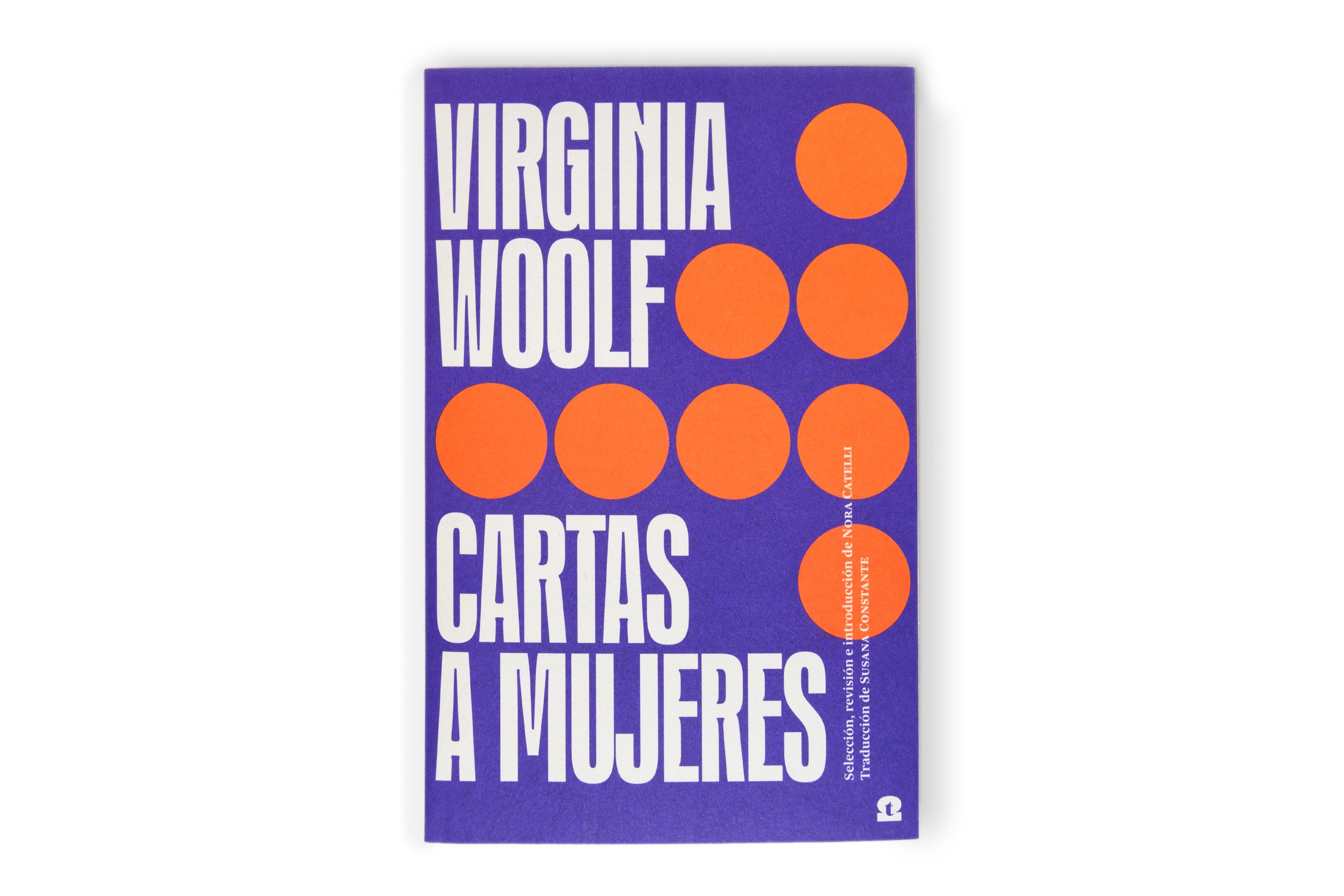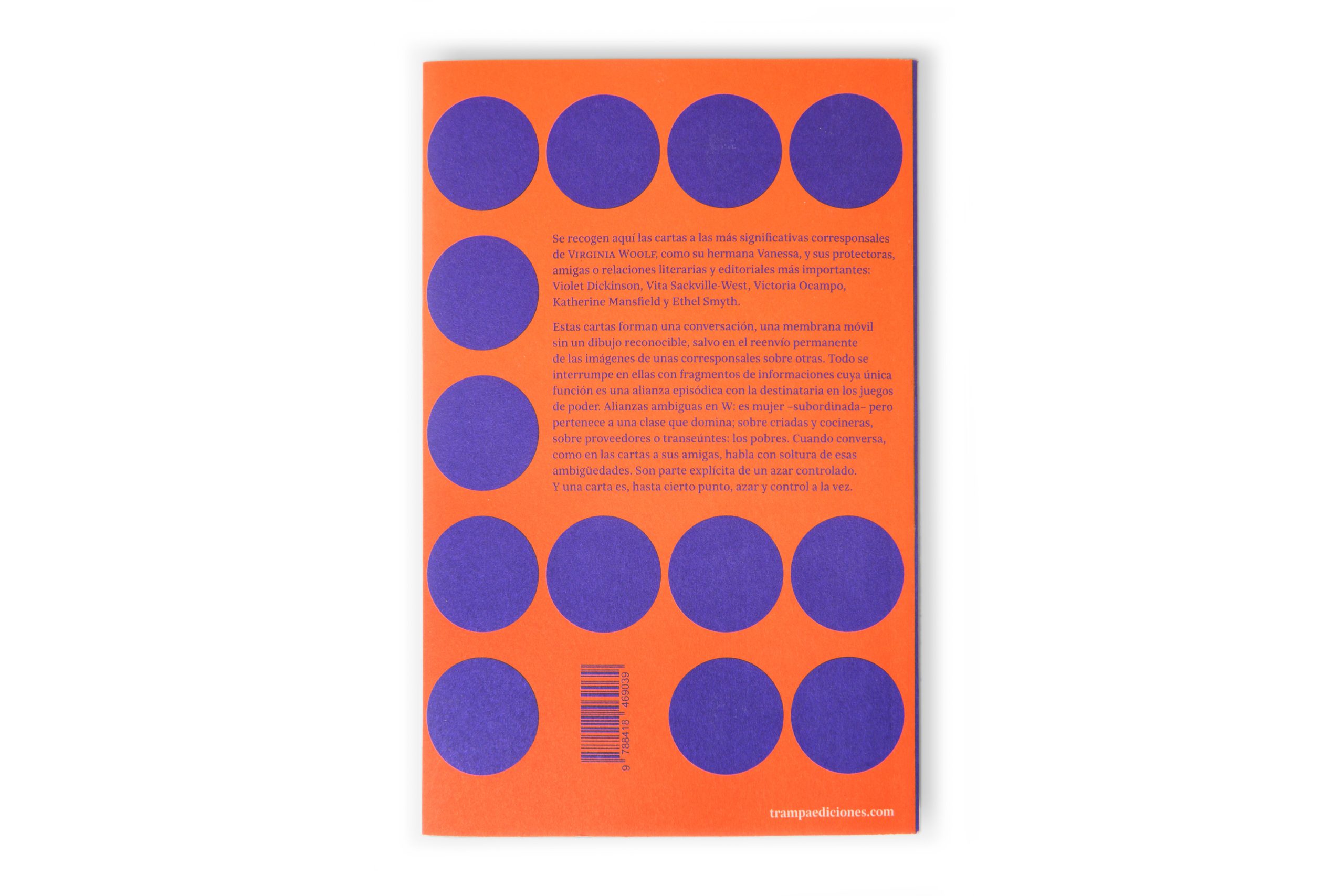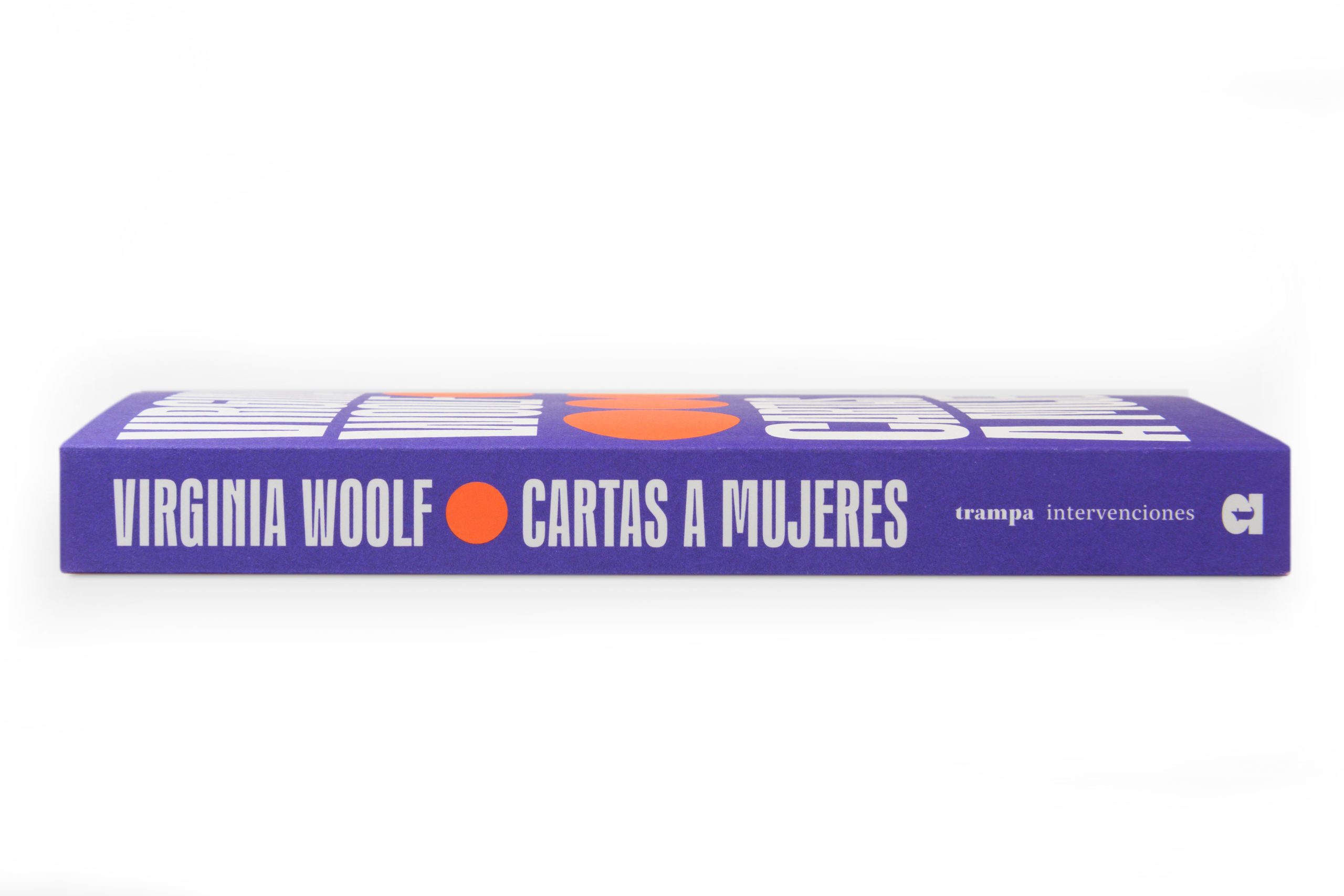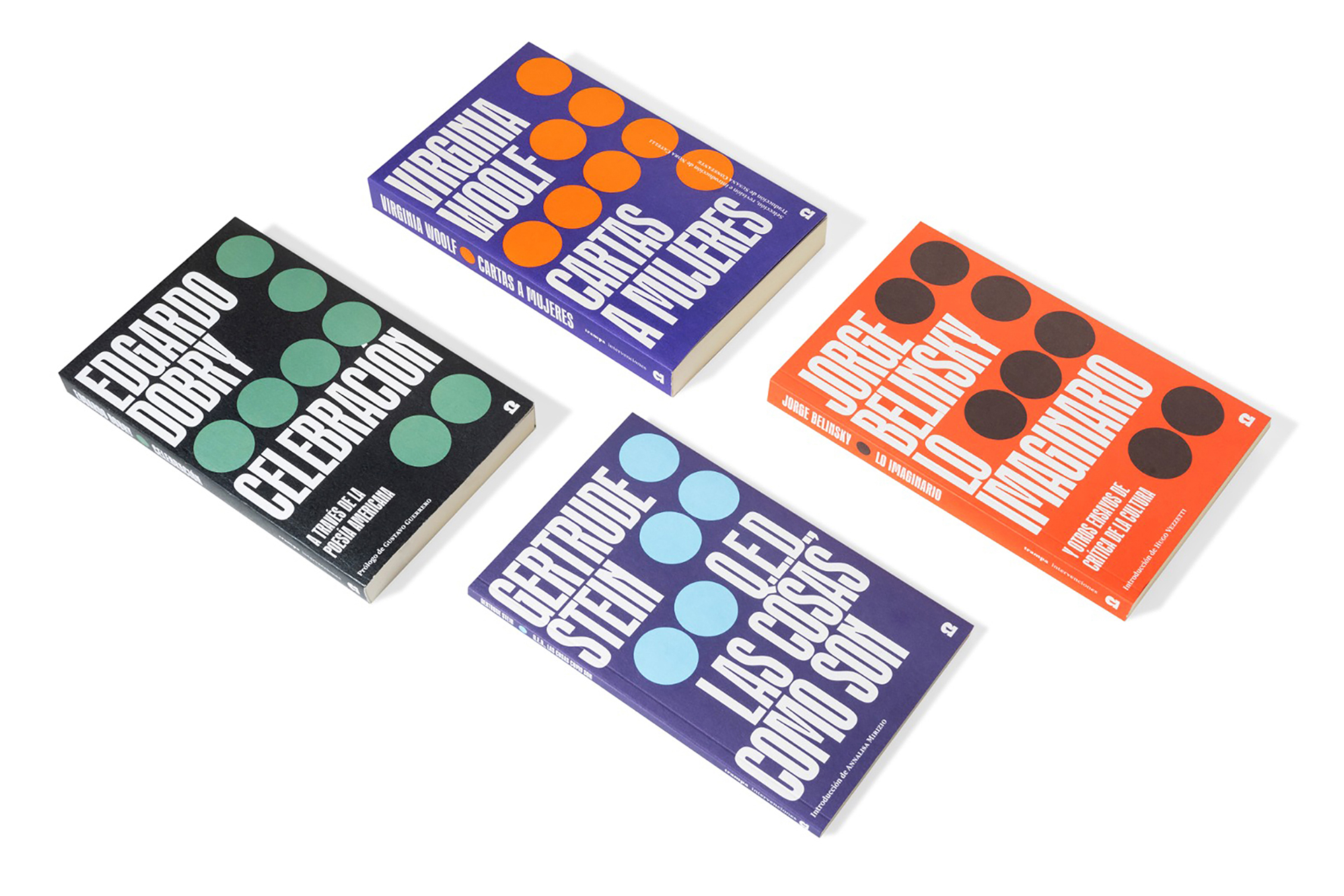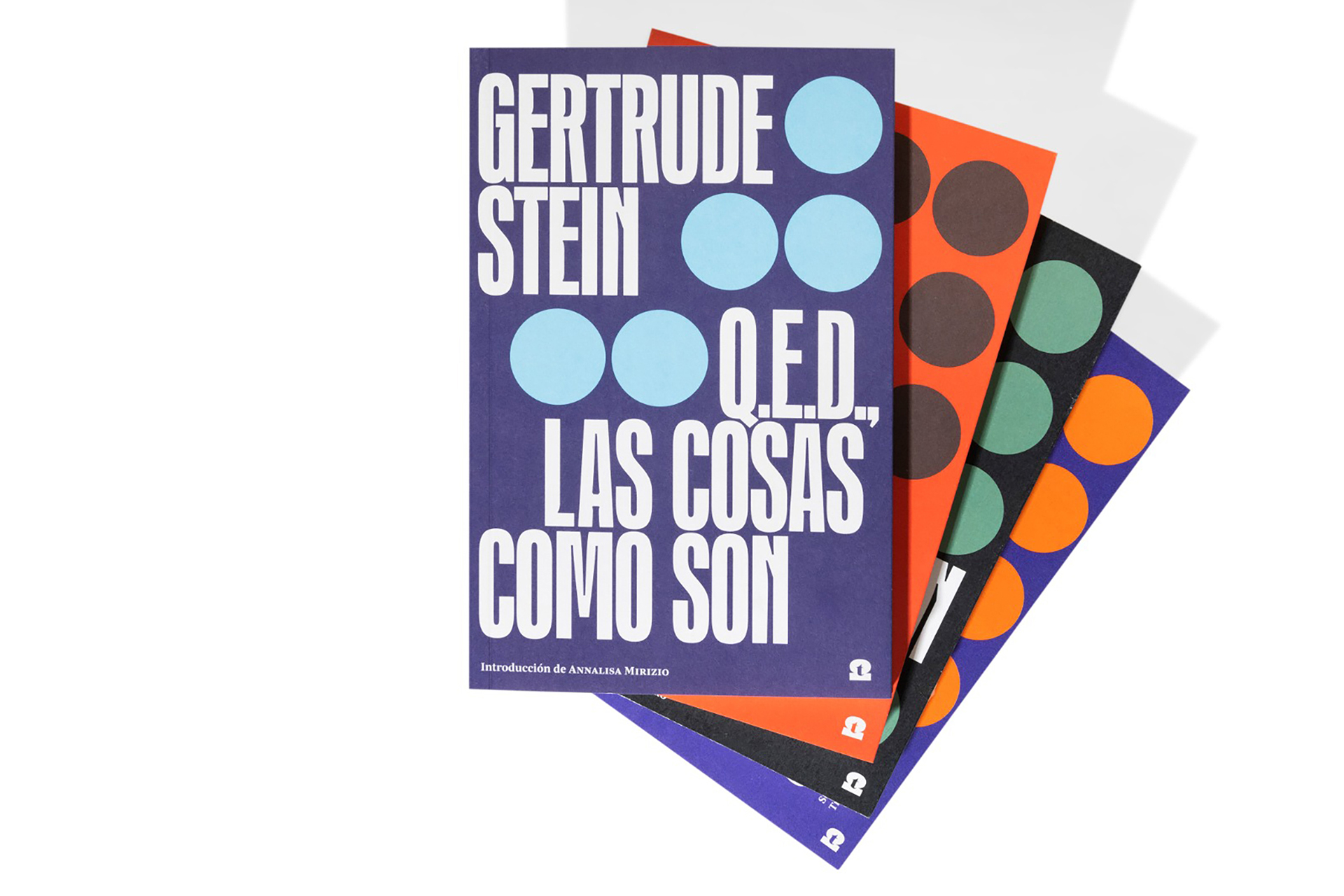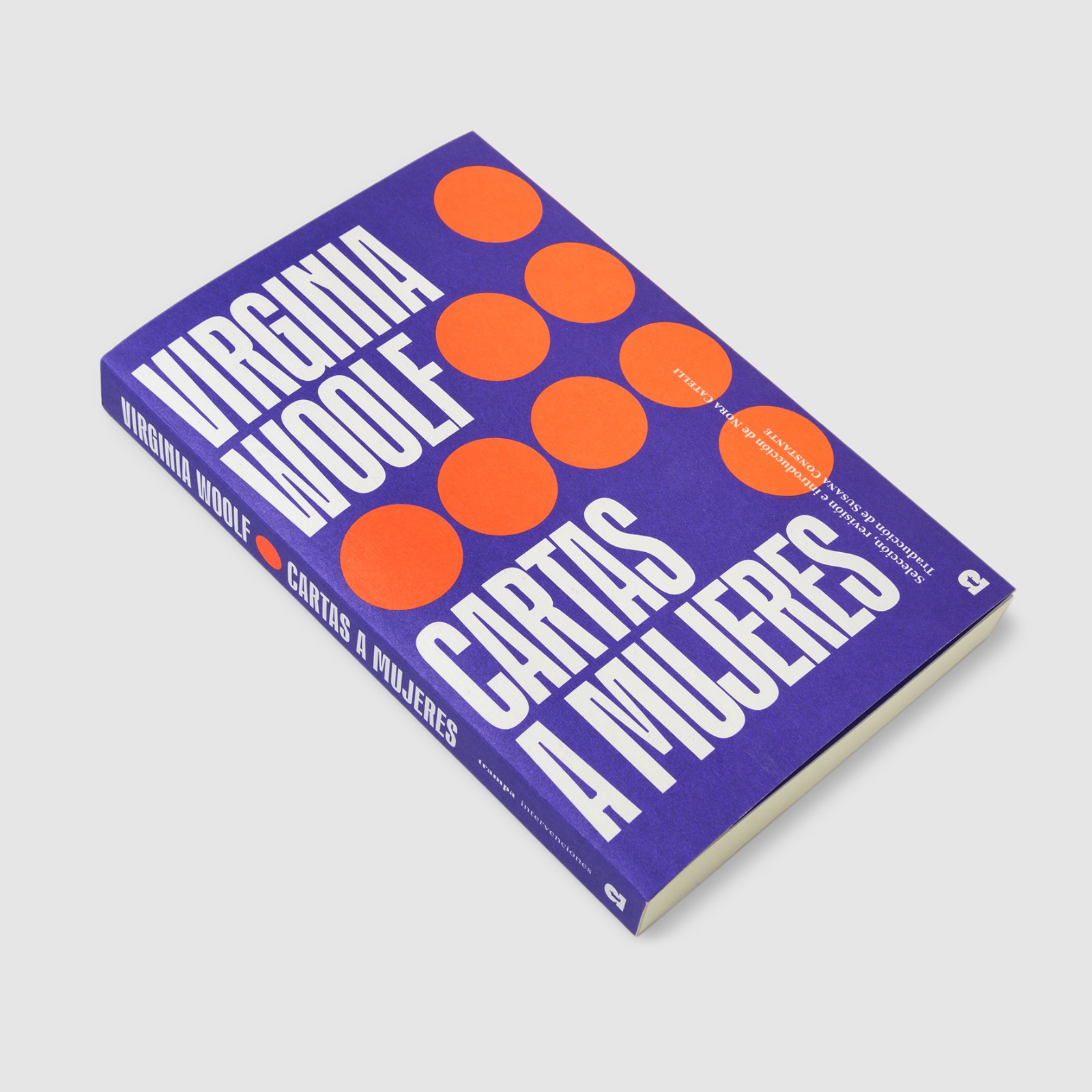
Custom typeface and book cover series design
INTERVENCIONES is the essay collection of Trampa ediciones, directed by Nora Catelli and Edgardo Dobry. The proposal arises from the shared conviction that it is increasingly difficult to make room for some books that are considered important and that, as readers, we would like to find in bookstores, and in a careful edition in Spanish. The collection was born with the desire of giving a new life to some texts that were relevant at their time, and that, being unfindable, the publishers believe it was necessary to rescue in our present. They are sure to please and reconcile these readings with a broad public and to offer an experience that is as enriching as it is appealing.
The design proposal
It consisted of a combination of custom type, shapes and colors, representing the idea that the reader is immersed in a pleasant “trap”, meaning the desire to read, not only for its content but also for being an interesting and suggestive editorial piece. There are books, and well-designed books, that make great reads and provide the book cover with a recognizable identity, simple and with personality. The visual power brings new readers closer to classic works, from a more contemporary language.
These are the four first titles:
— Cartas a mujeres, Virginia Woolf
— Q.E.D., Las cosas como son, Gertrude Stein
— Lo imaginario y otros ensayos de crítica de la cultura, Jorge Belinsky
— Celebración. A través de la poesía americana, Edgardo Dobry
Graphic Design: Gerard Joan and Laura Meseguer
Type designer: Laura Meseguer